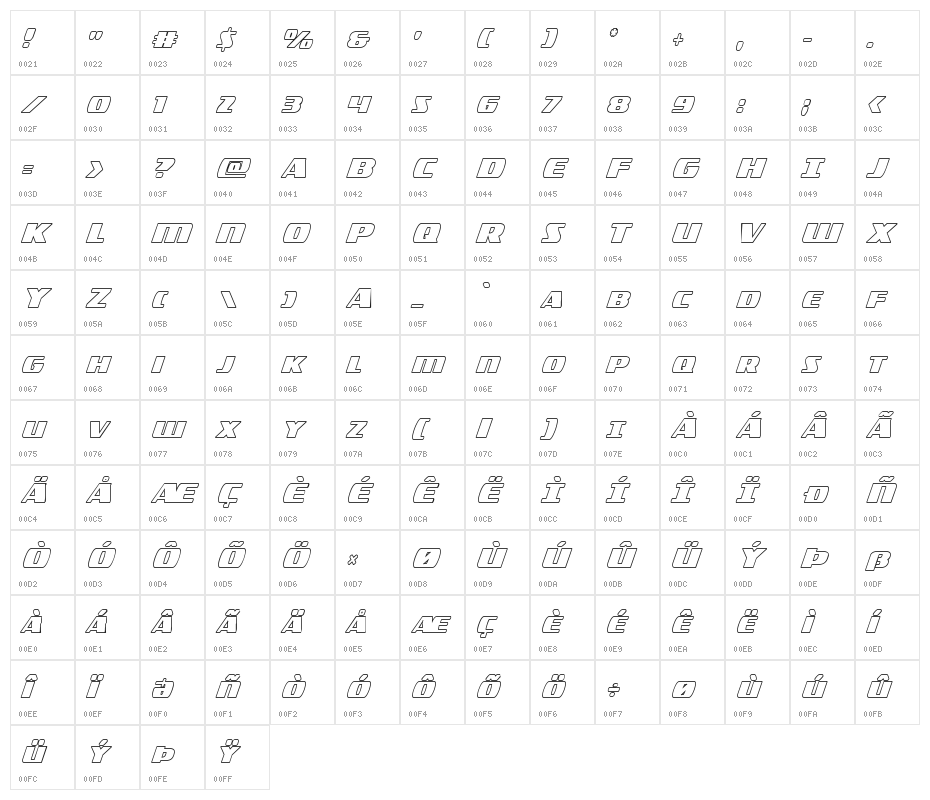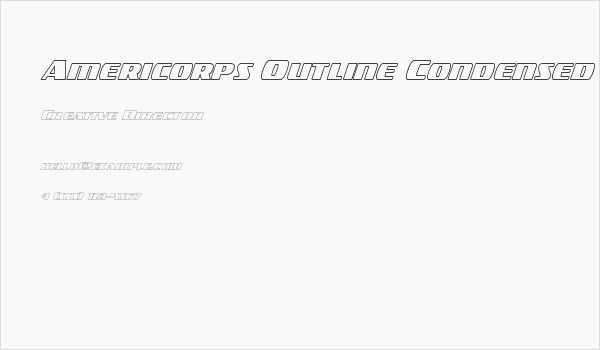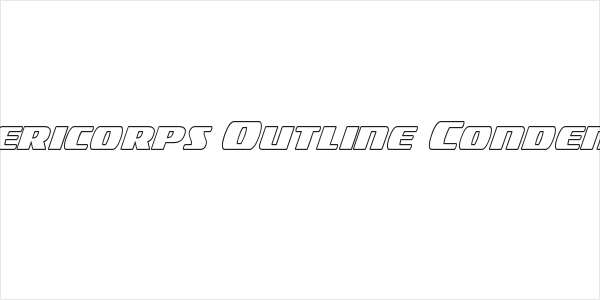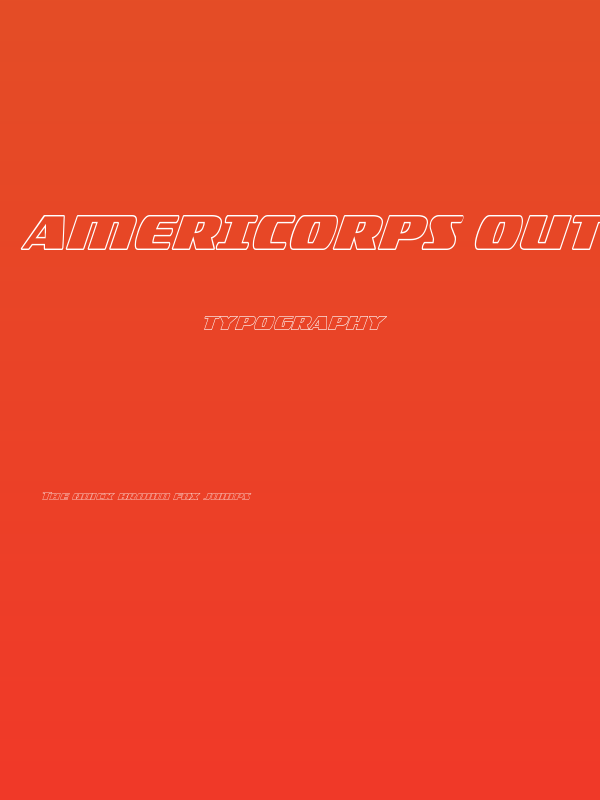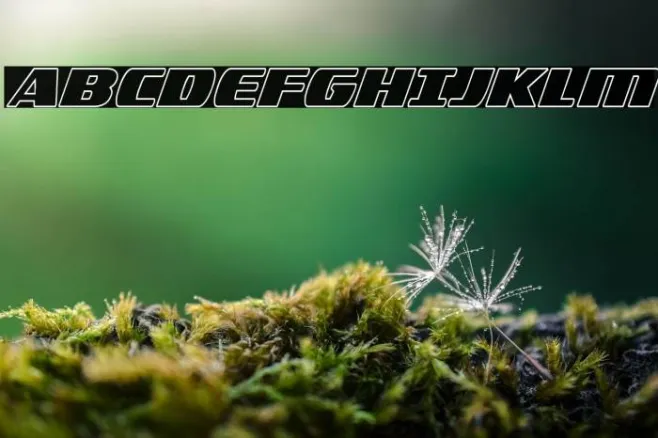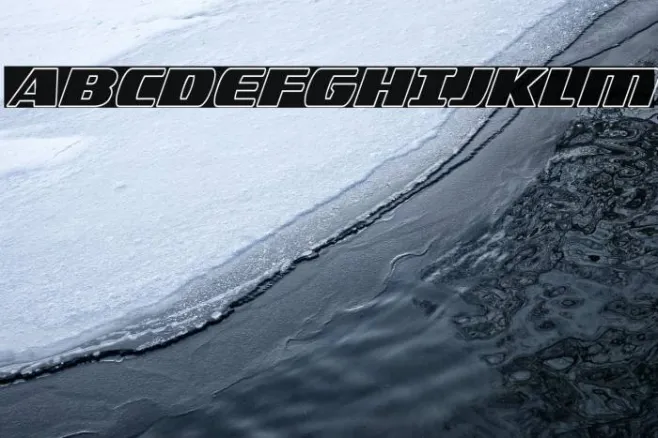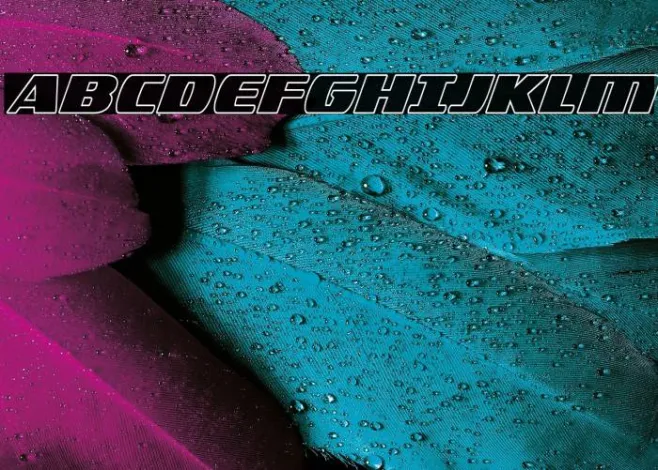
Americorps Outline Condensed Font
Americorps Outline Condensed Description
This font features a bold, outlined style with a condensed structure, giving it a modern and dynamic appearance. The uppercase and lowercase letters maintain a consistent geometric form, emphasizing straight lines and sharp angles. The numerals and special characters follow the same outlined and condensed design, ensuring uniformity across all glyphs. The font's clean and structured look makes it suitable for various design applications where a strong visual impact is desired.
| Proposed Projects | Ideal for branding, posters, headlines, and any design project requiring a striking and modern typeface. |